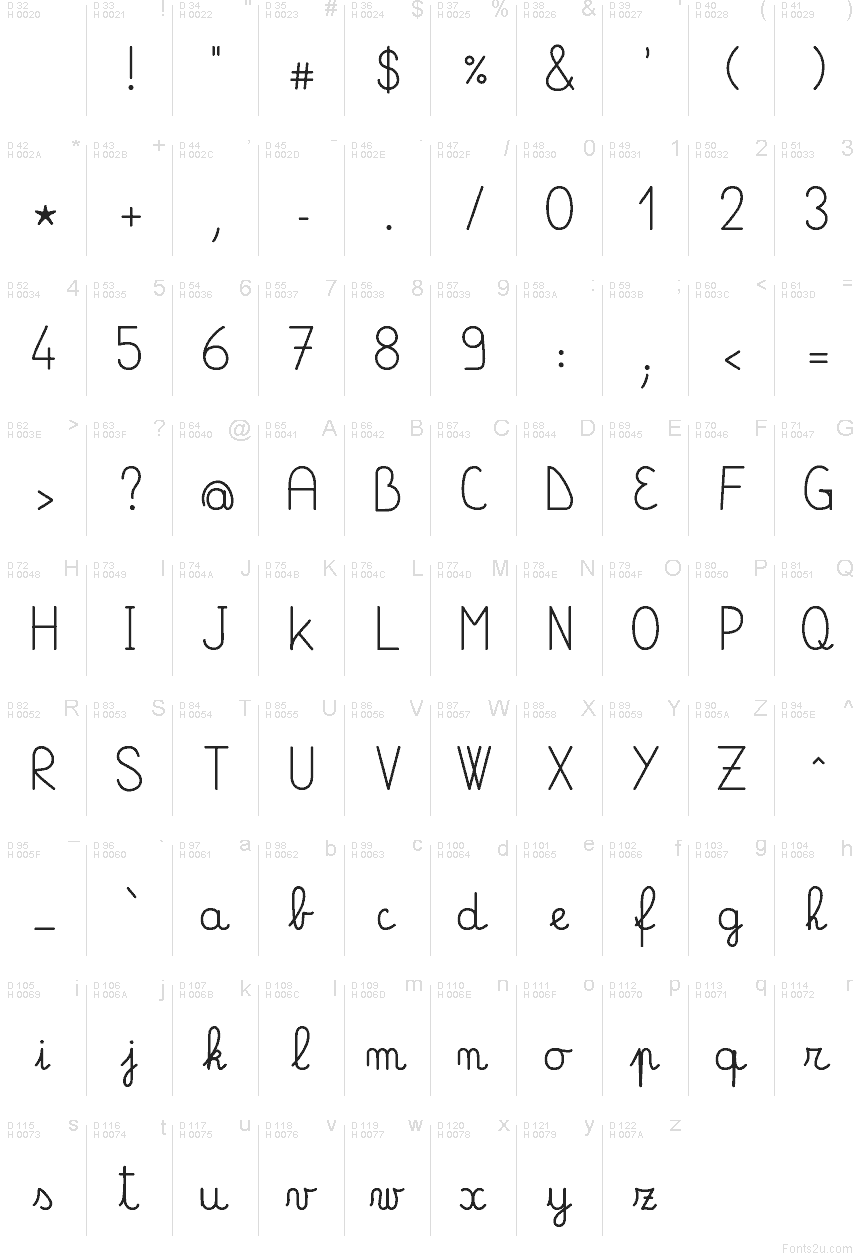
Michelangelo_School_Handwri
Michelangelo School Handwri is a free school handwriting font with unusually tall, narrow letters and a light monoline stroke. Broad rounded arches soften the capitals, and the more flowing forms introduce loose joins and long vertical gestures.
Classroom worksheets are its clearest setting, especially for handwriting exercises, alphabet charts, and teacher-made activity sheets. Its open, economical construction also suits children's publishing and educational posters, where the lettering can feel approachable without turning into a cartoon. The recurring arches and extended uprights give these materials a recognizable pen-drawn thread that can continue into simple rules, borders, or line illustrations.